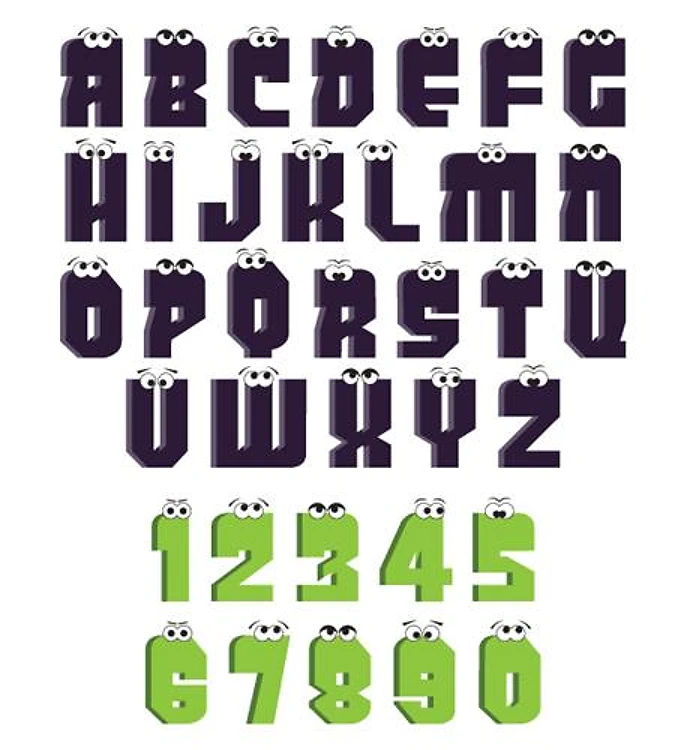
Concord Collections is happy to present Googly Eyes Embrilliance Embroidery Font - Whimsical Decorative Letters - BX font machine embroidery font which has The playful design of this machine embroidery font showcases large block-style letters with googly eyes, perfect for children's projects. Ideal for embellishing items like backpacks and t-shirts. Available in Embrilliance format. included. If you would like to view more embroidery fonts and alphabets please search our embroidery fonts page.
Googly Eyes Embrilliance Embroidery Font - Whimsical Decorative Letters - BX font